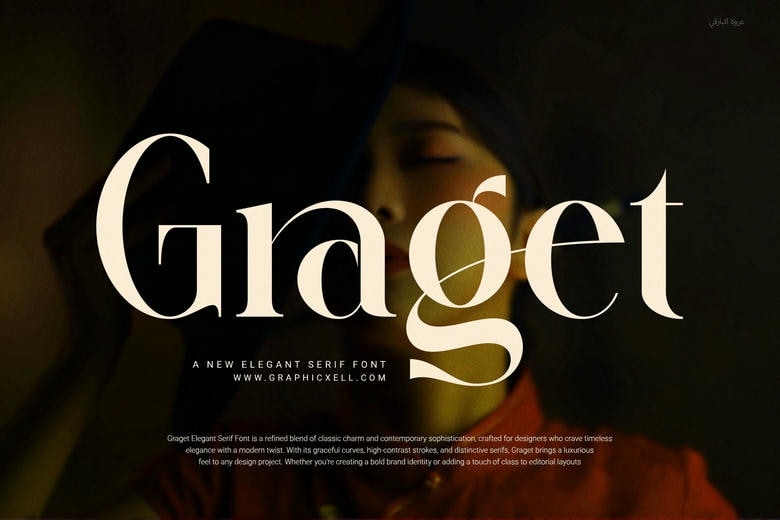
Graget Elegant Serif Font is a minimalistic and contemporary serif typeface, which is rich in sophisticated and stylish qualities. Its proportional and balanced forms are ideal towards different design projects. I have employed Graget to design the logos, branding materials, websites, and magazines, as well as package products and Graget gives every printing project a professional and established twist.
It is also equipped with functional ligatures that enhance readability as well as give special touch to your designs. Consequently, your writing sounds fluid, and it is polished. It is flexible enough to be applied in a variety of industries such as boutiques, food brands, advertising, etc.
Graget Serif Font